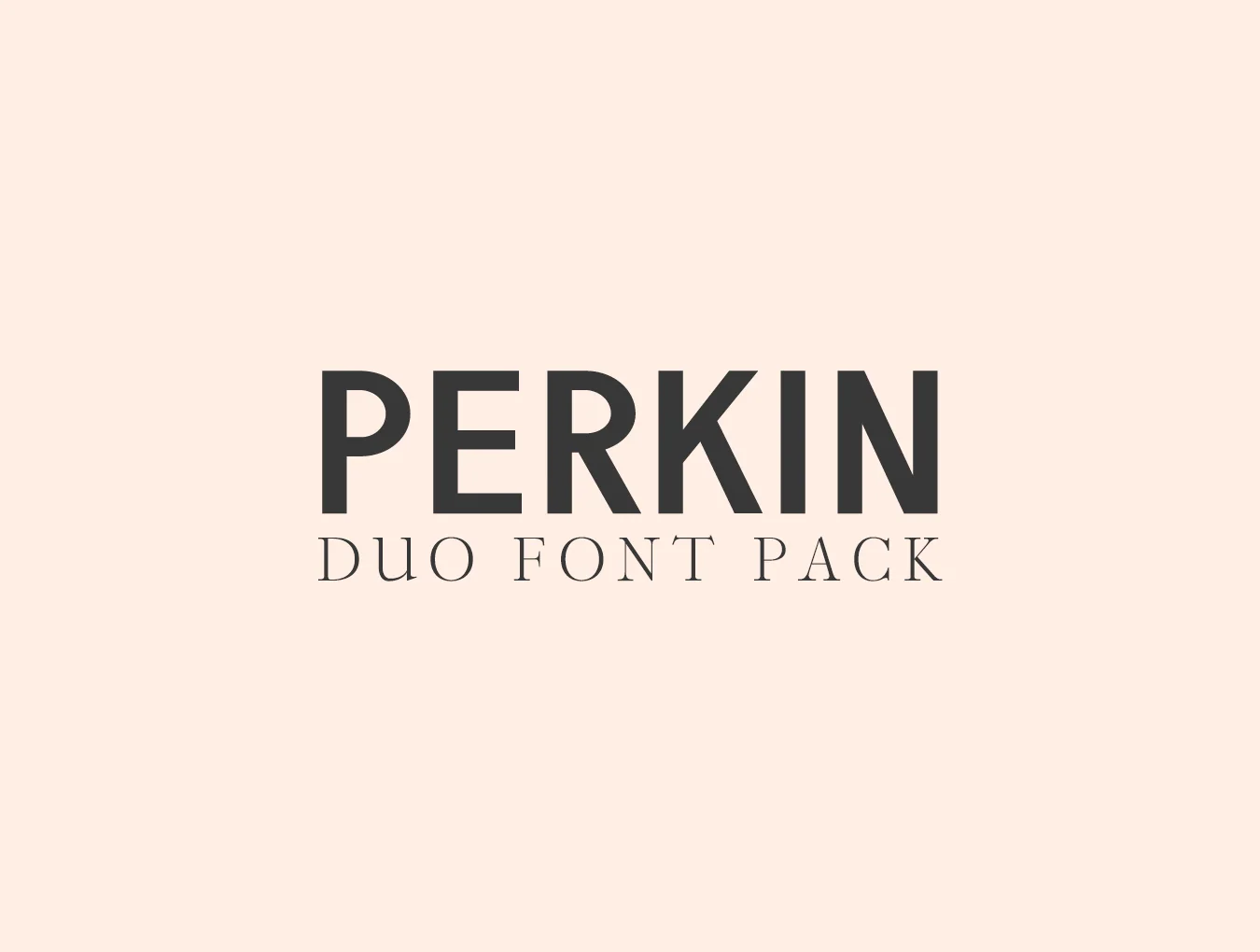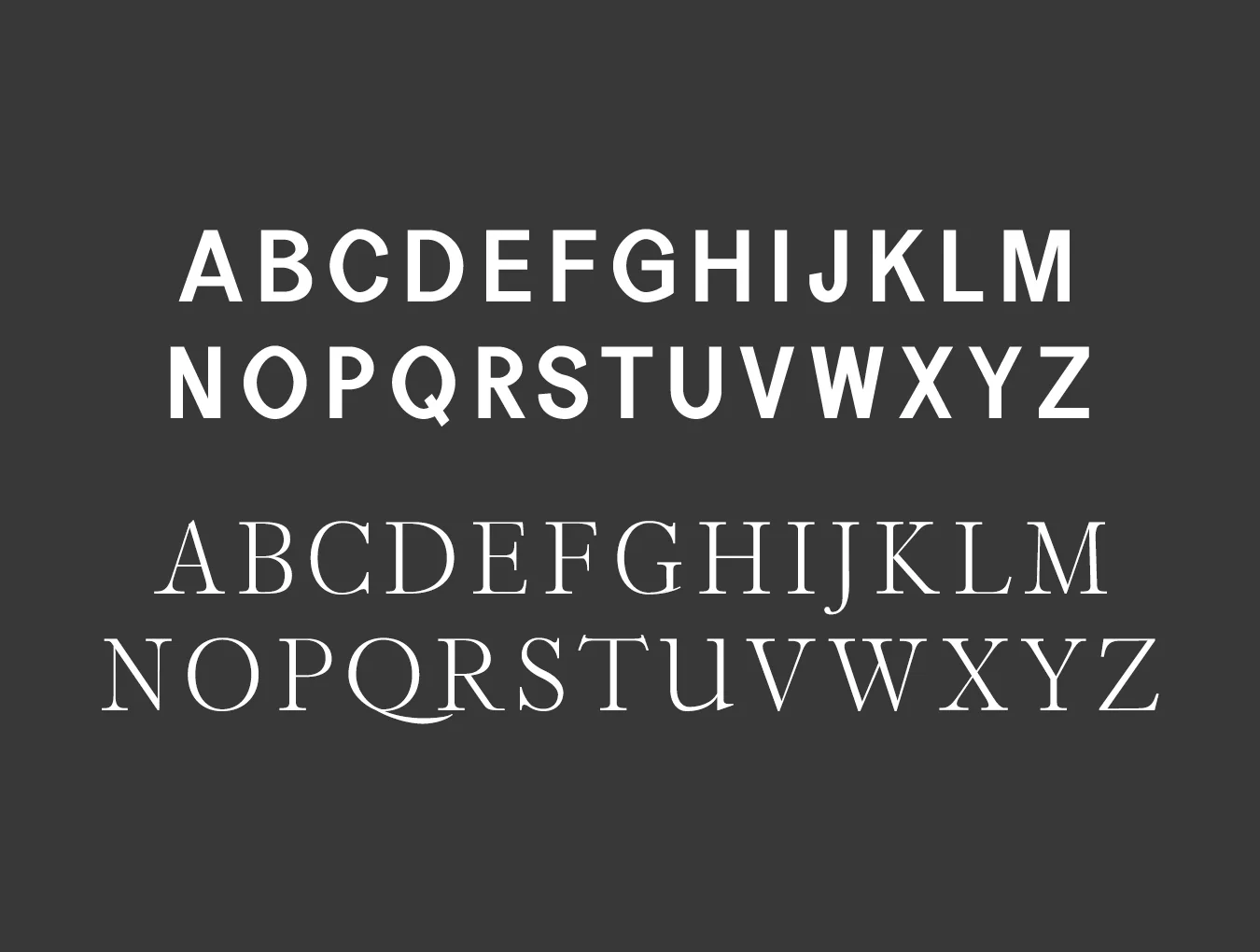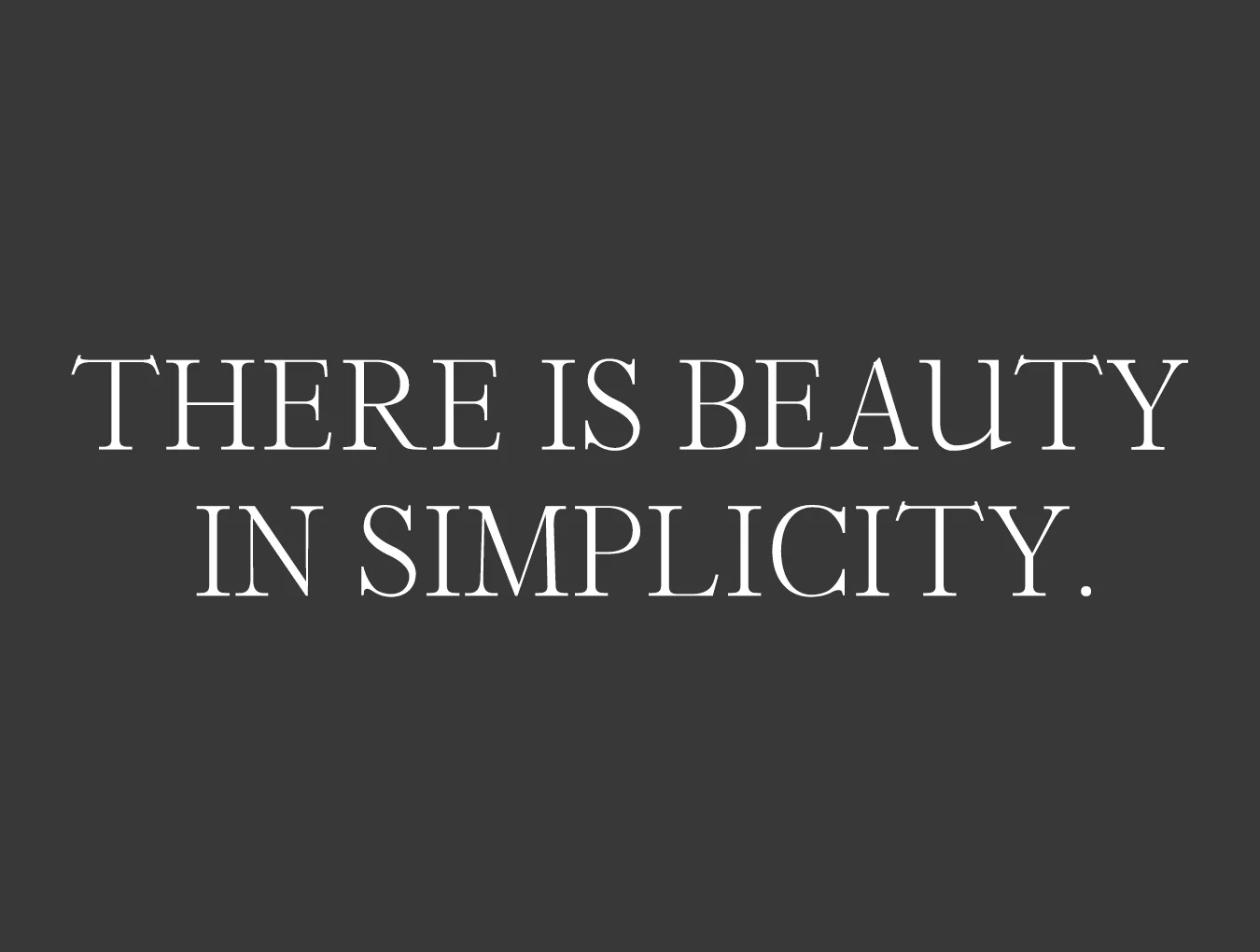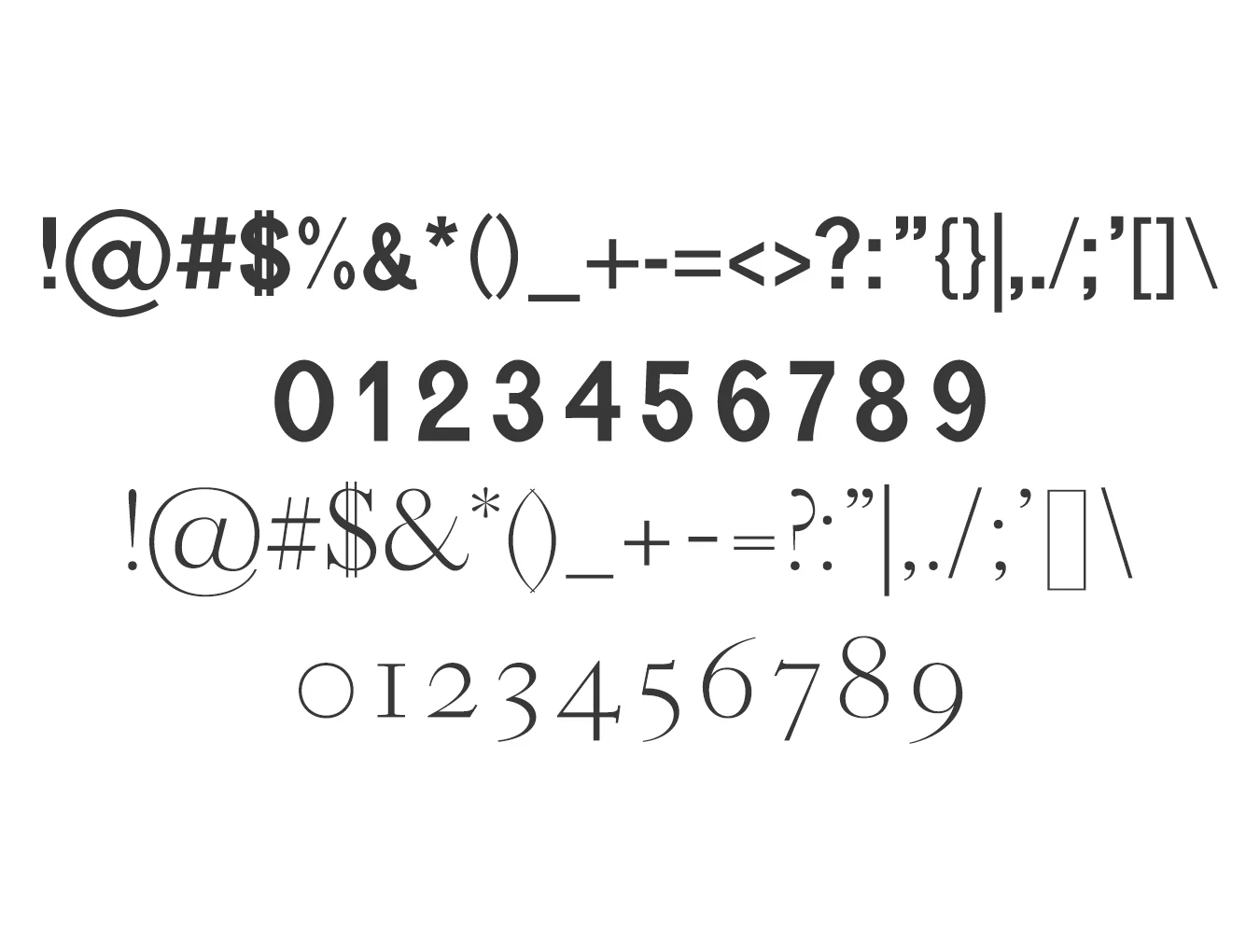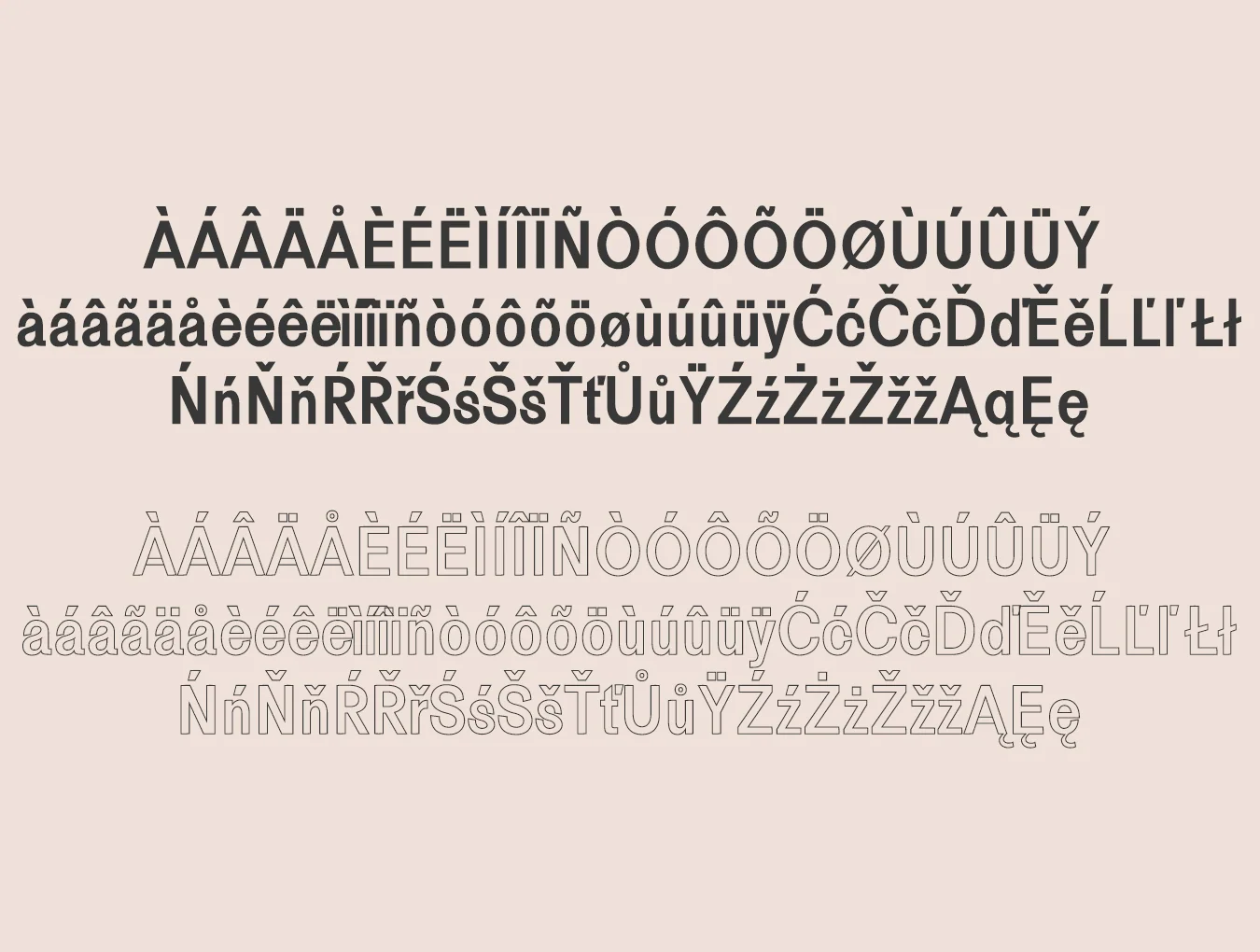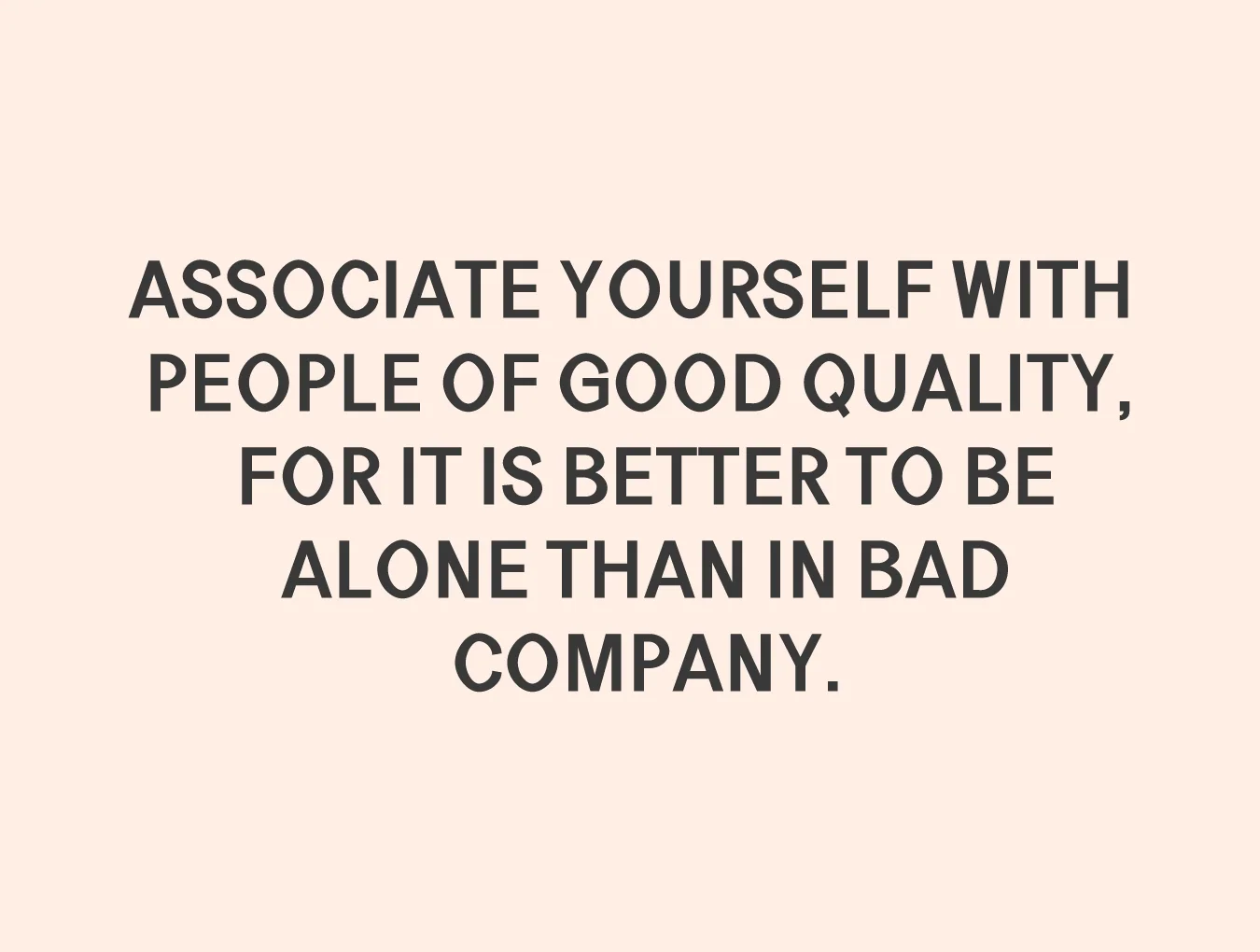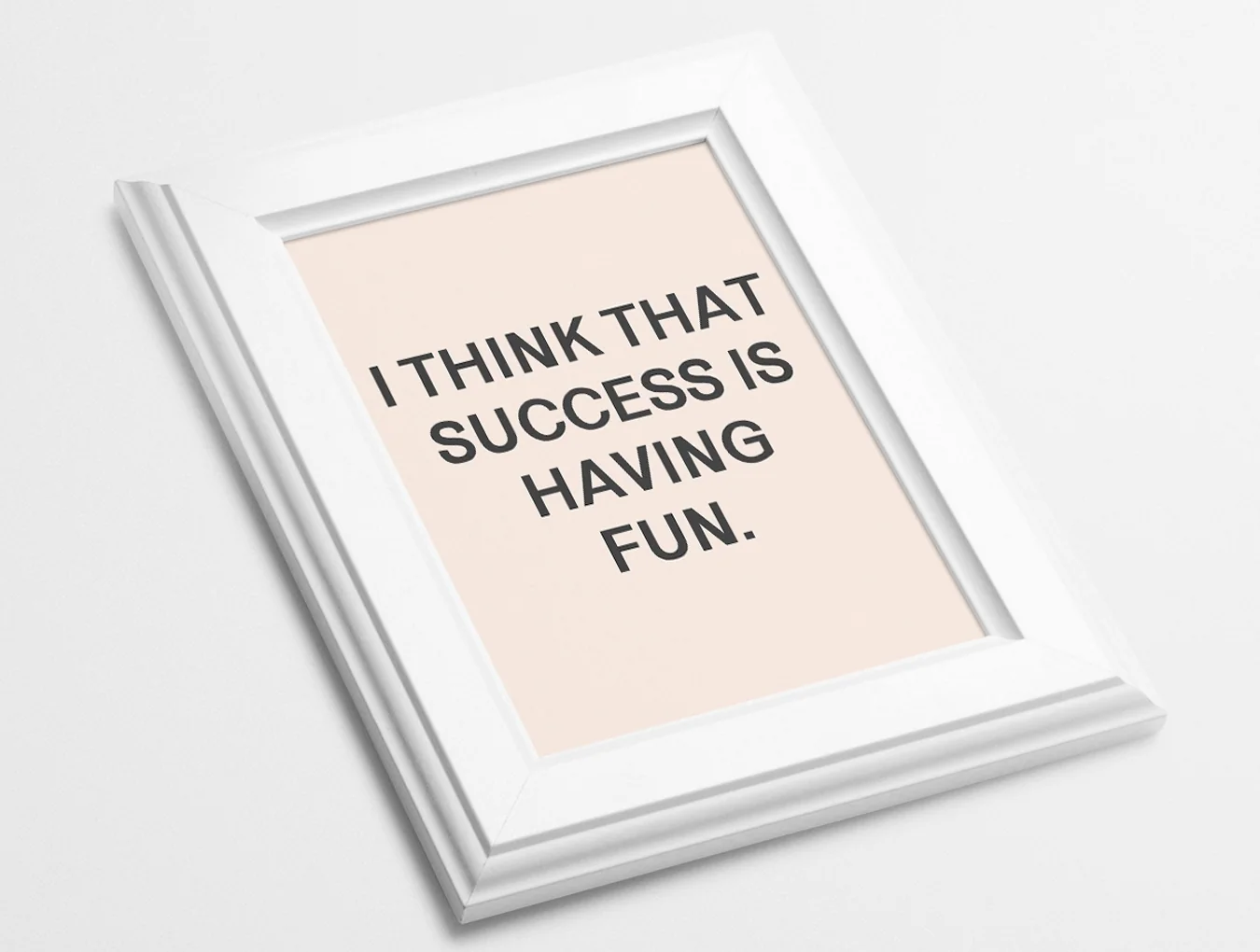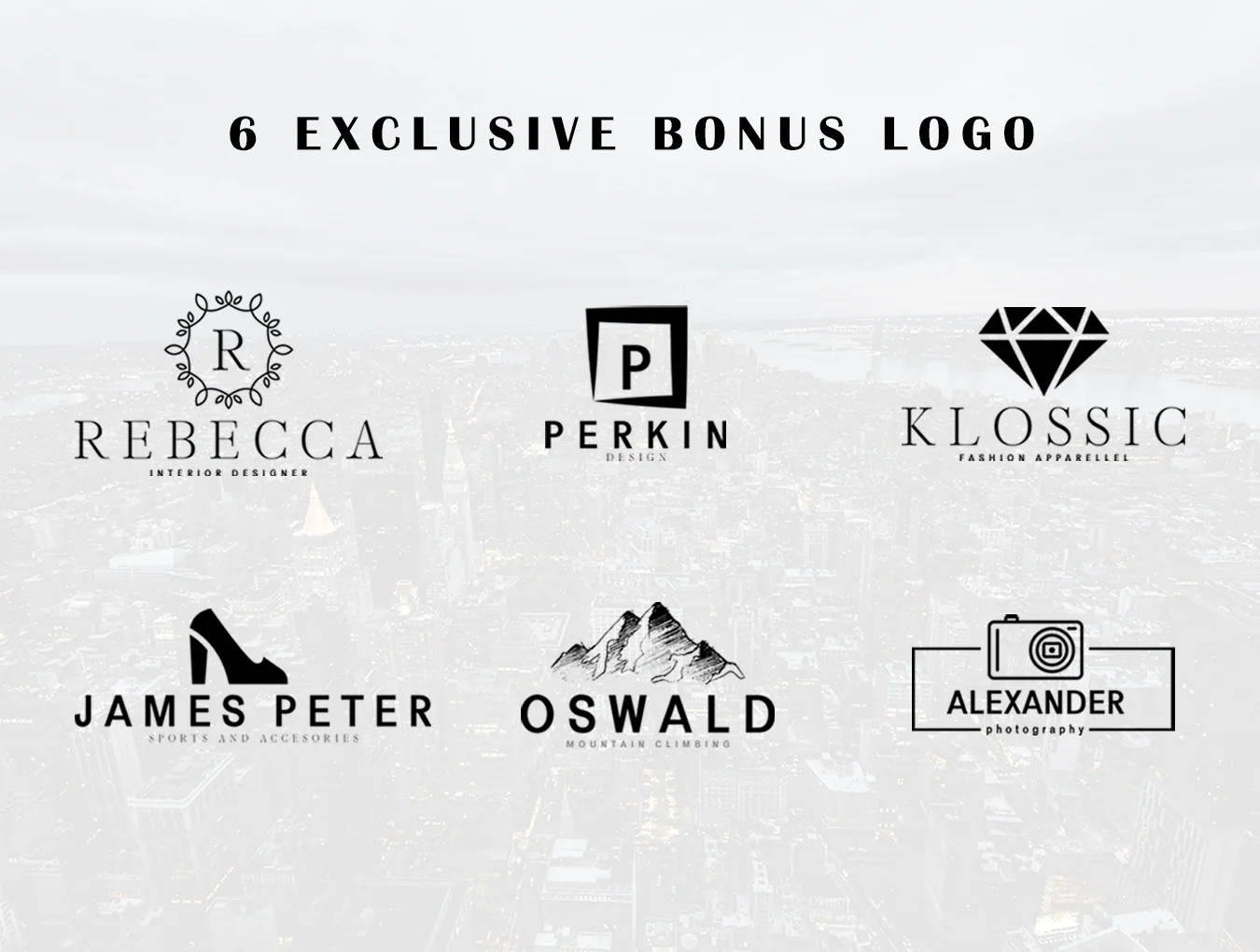
Perkin Duo Font
Perkin 4 typeface family bundle plus extra logo
Serif and sans serif type styles
294 sans serif glyphs plus 252 serif glyphs
Regular, Thin, and Light weights
Perkin Duo Font pairs a strong sans serif with a serif style, including both filled and outline versions. Use all caps with generous spacing for an elegant feel, or mix upper and lowercase for a timeless result. Ideal for logos, displays, headings, invitations, wedding stationery, titles, websites, and branding.